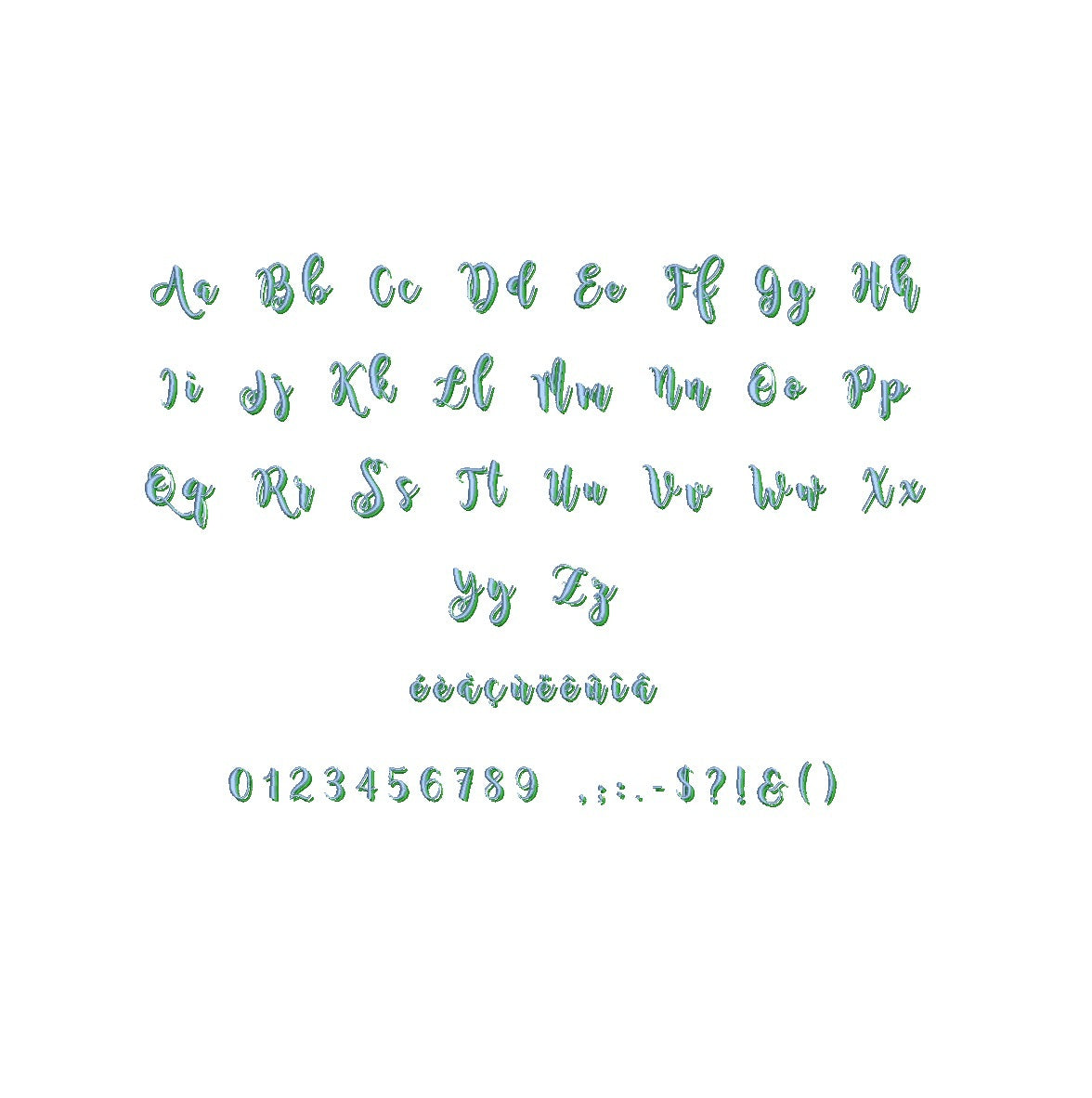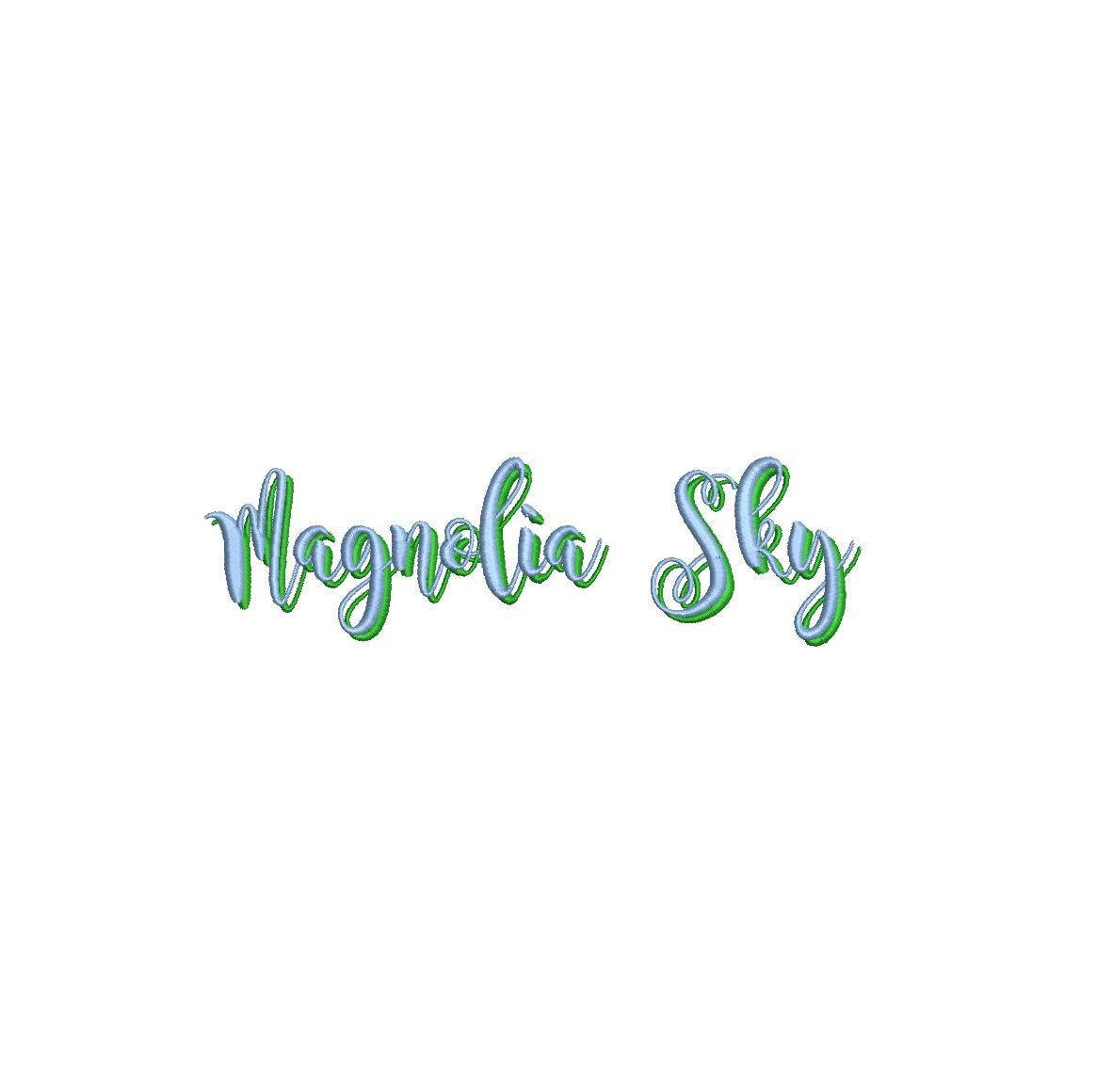
Elevate your embroidery projects with the enchanting Magnolia Sky Shadow ESA font. Designed for seamless integration with Wilcom Studio e4.5.6 and Hatch 3 versions and newer, this font combines graceful aesthetics with versatile compatibility. Craft captivating monograms, intricate designs, and elegant logos effortlessly. Unleash your creativity on every stitch, infusing a touch of sophistication into every detail. Transform your textile artistry today – embrace the Magnolia Sky Shadow ESA font for unmatched elegance and precision. Don't miss out on this opportunity to enhance your embroidery journey. Upgrade now and watch your designs blossom.